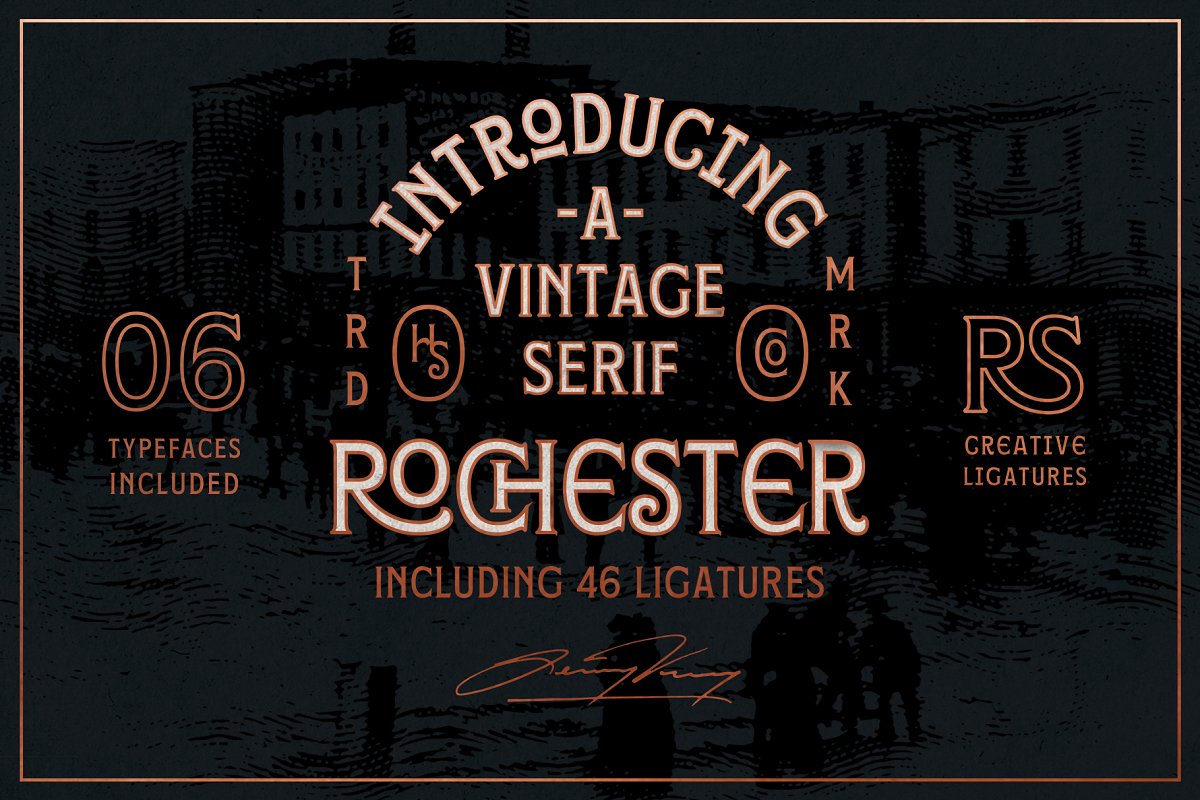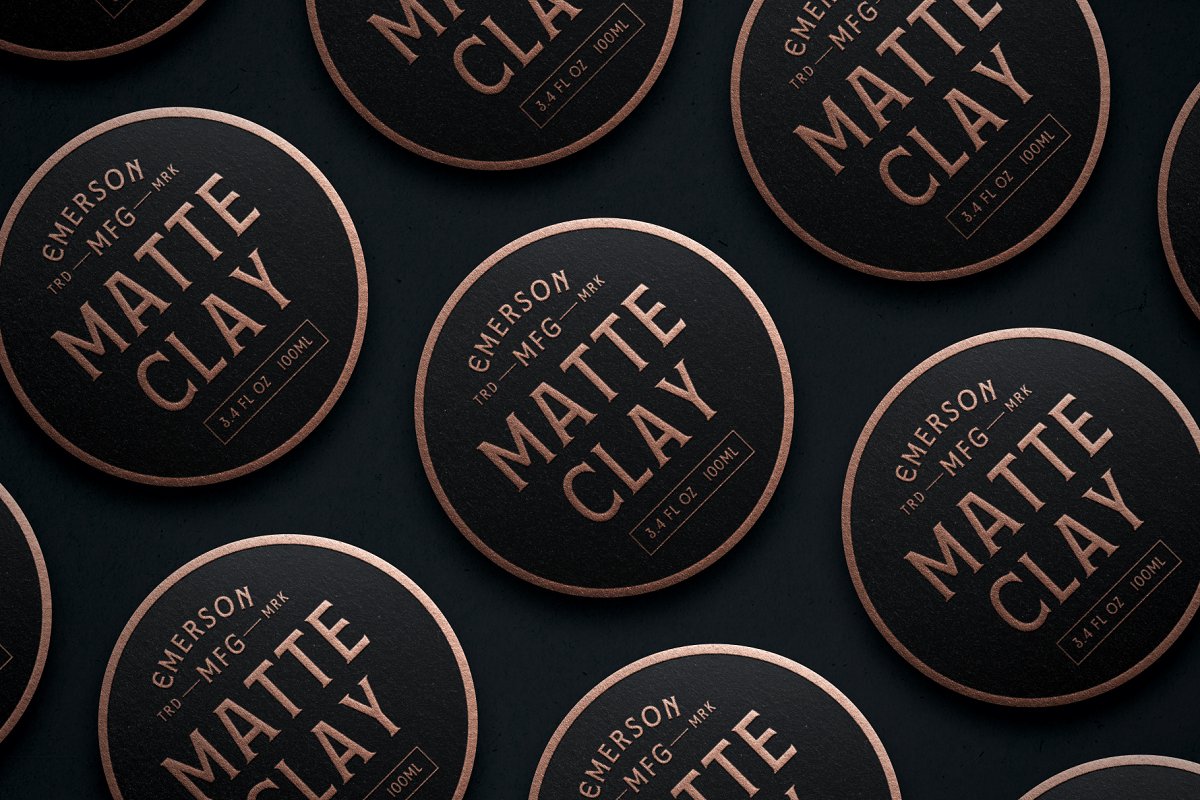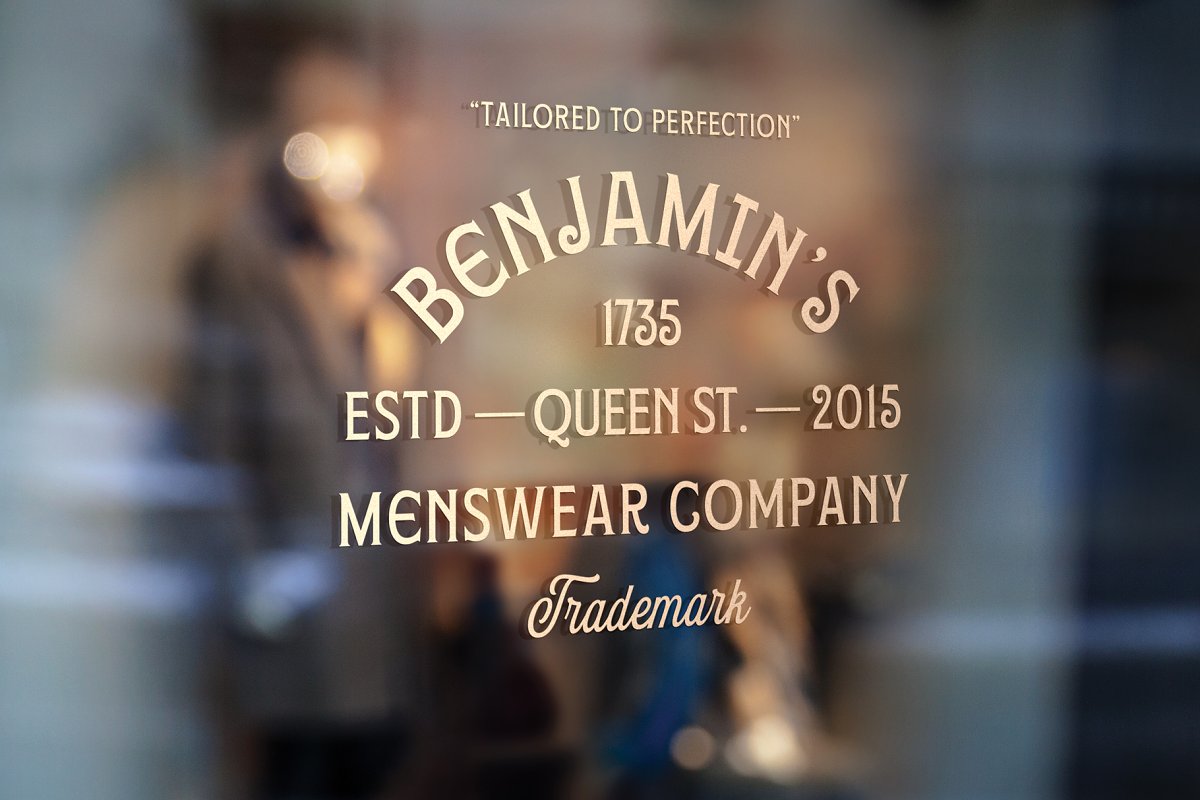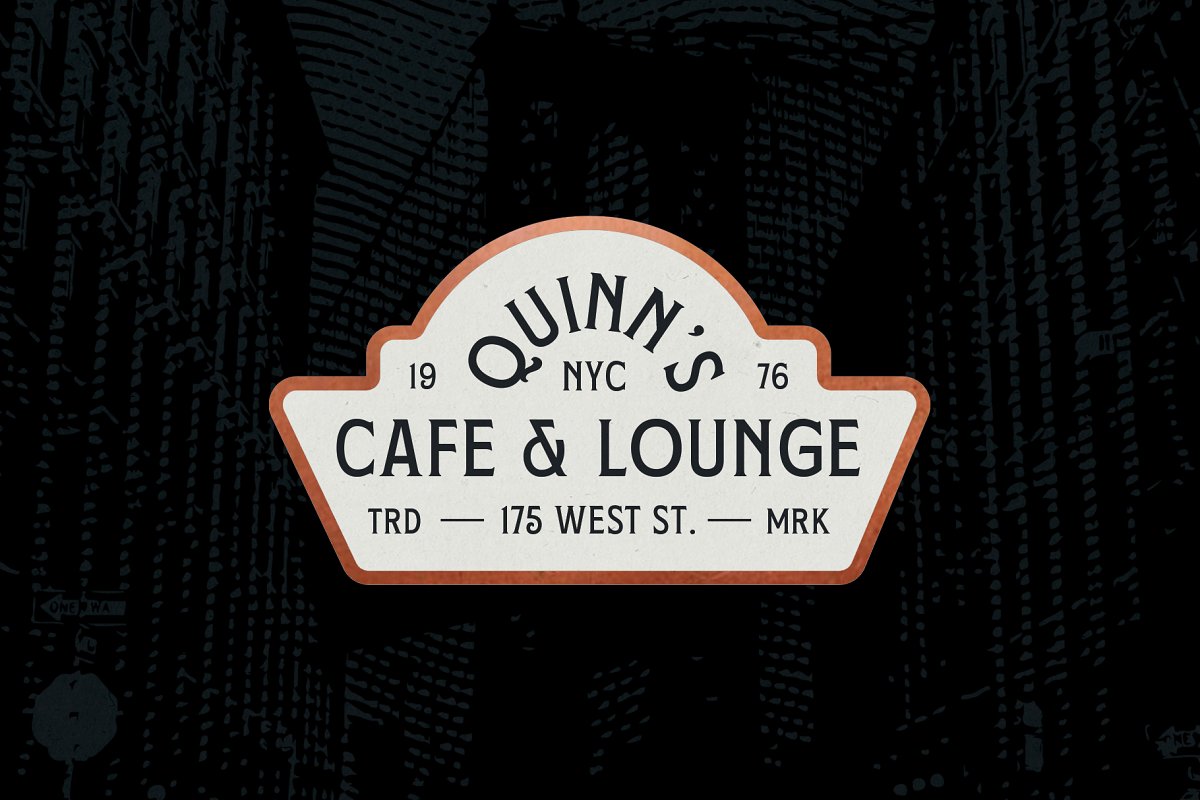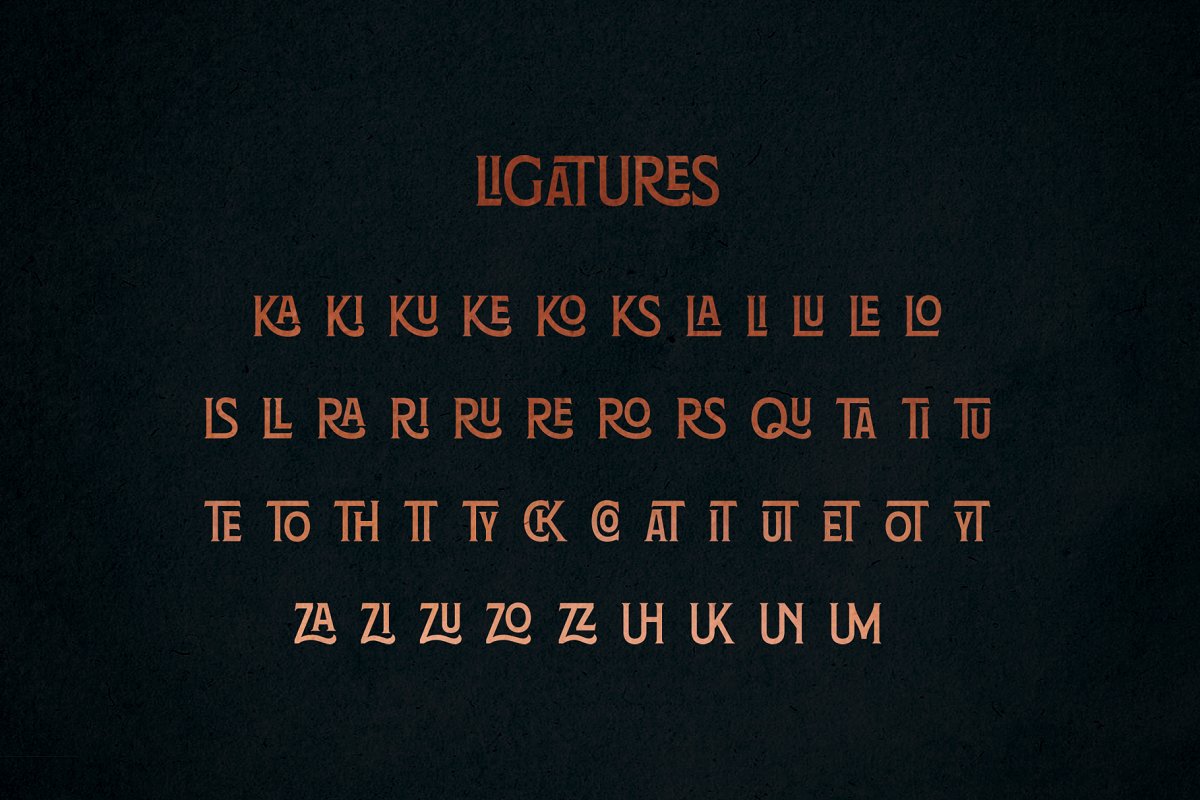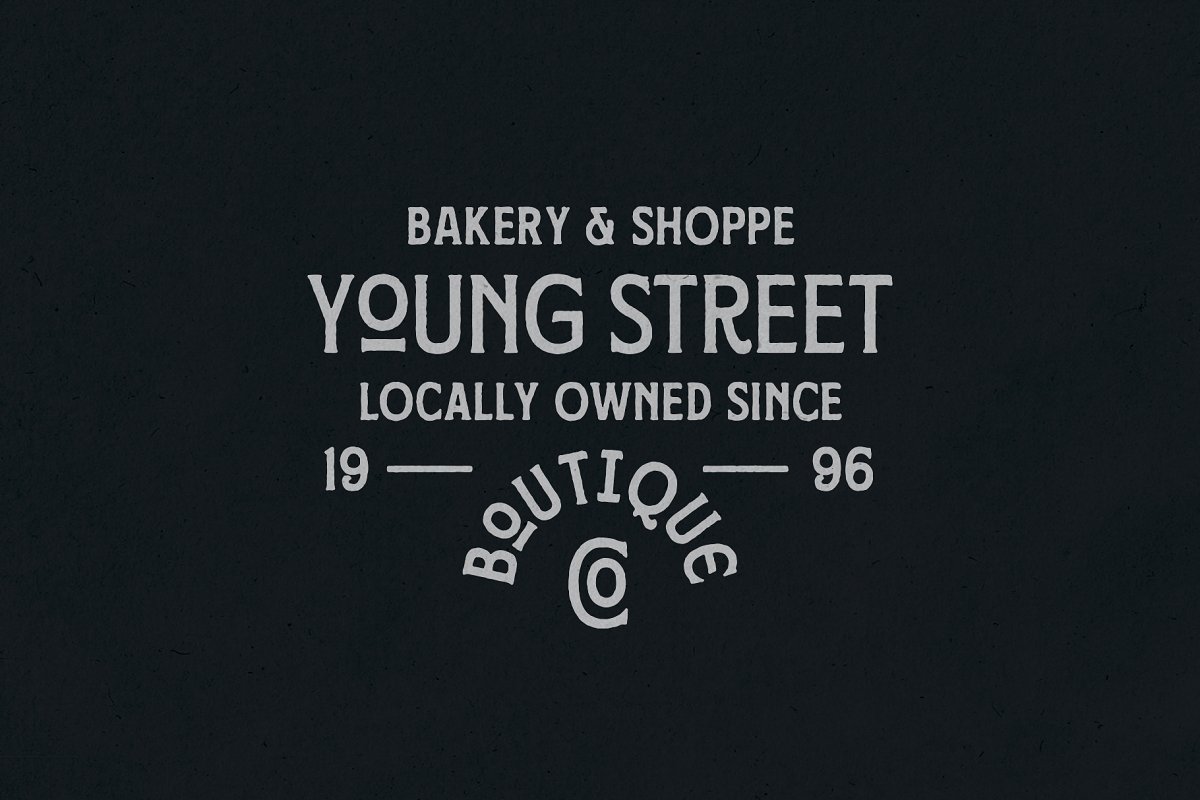
About the Rochester with Ligatures Font
Rochester is a vintage spur serif typeface that includes 46 ligatures, making this a very versatile typeface. Create stunning logos, labels, headlines, flyers and more with Rochester.
Rochester
- 46 Ligatures
- Western European Character Set